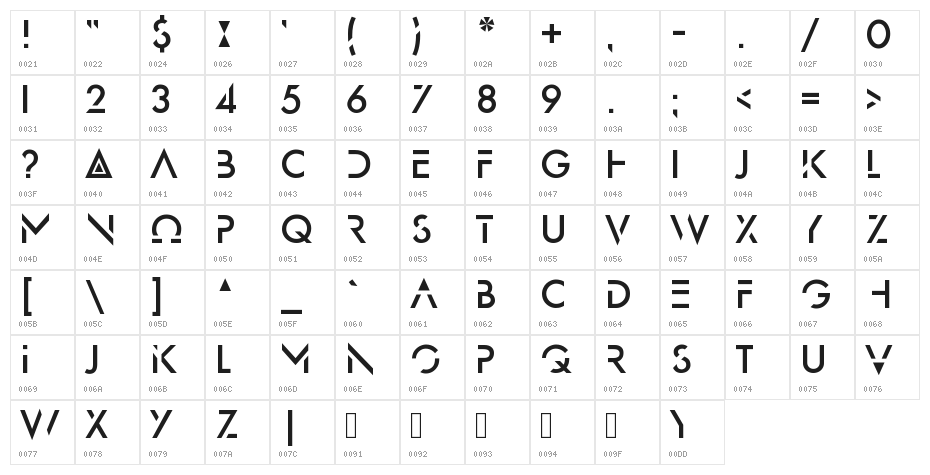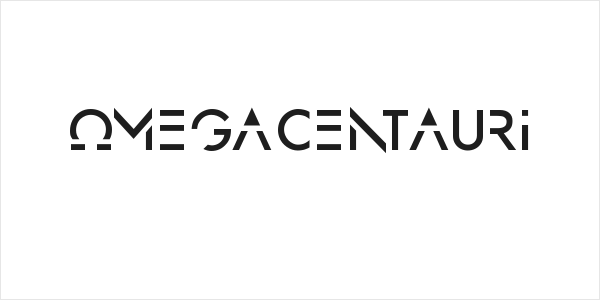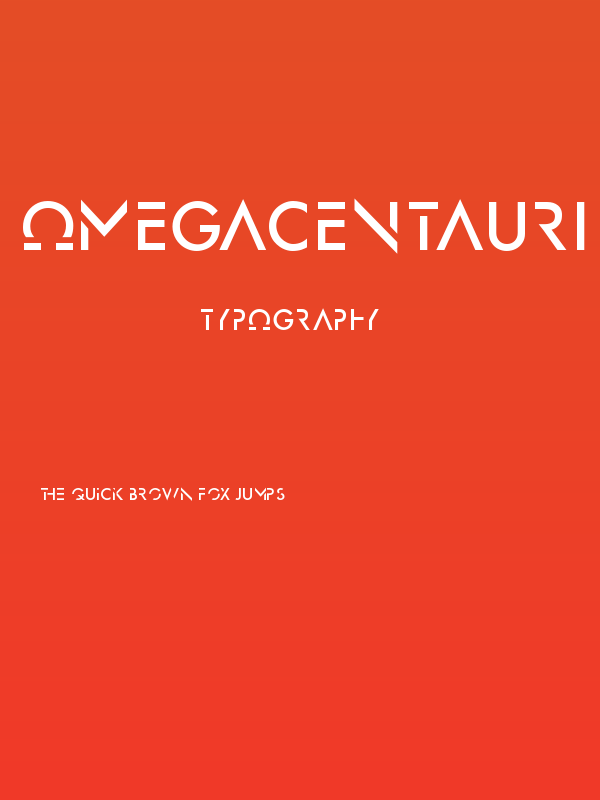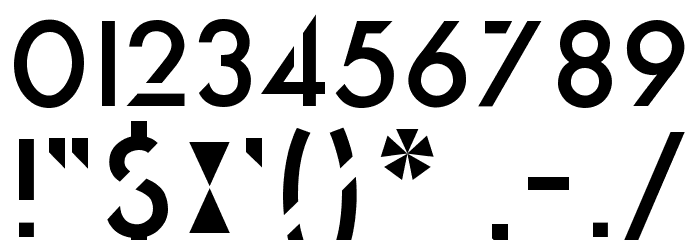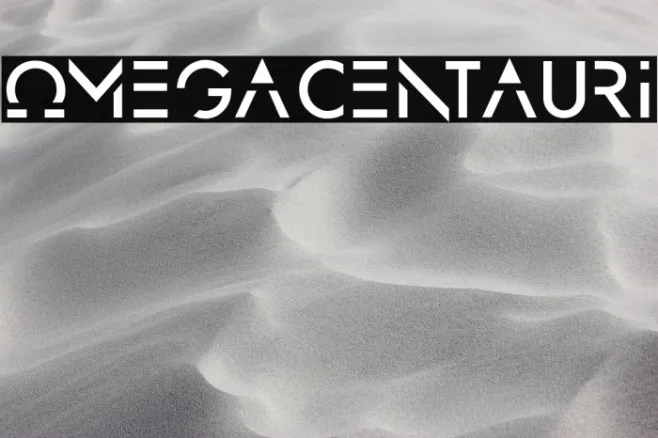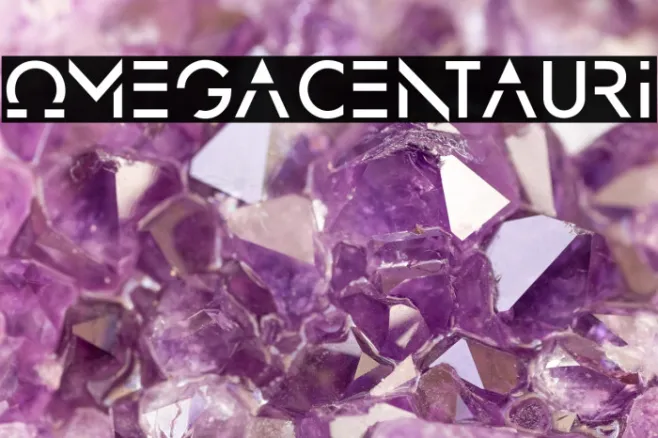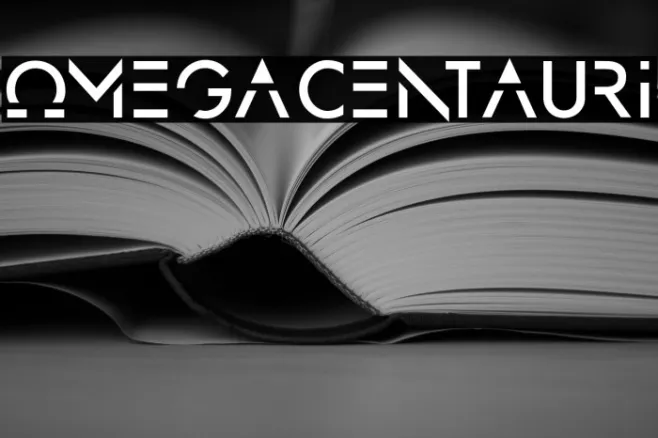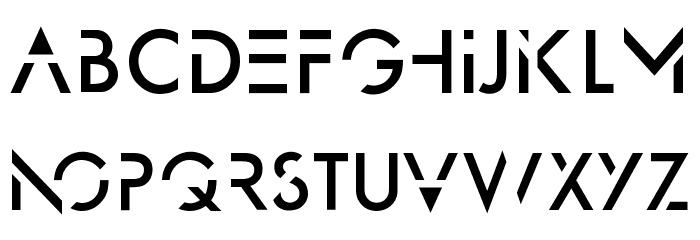
OmegaCentauri Font
OmegaCentauri Description
This font features a bold and geometric design, characterized by its sharp angles and clean lines. The uppercase letters are distinct with a futuristic aesthetic, making use of negative space to create unique shapes. The lowercase letters maintain a similar style, ensuring consistency throughout. Numbers and special characters are designed to match the boldness and geometric nature of the alphabet, providing a cohesive look. The font's modern and edgy appearance makes it suitable for projects that require a strong visual impact.
| Proposed Projects | Ideal for branding, posters, and digital media that require a modern and impactful look. |